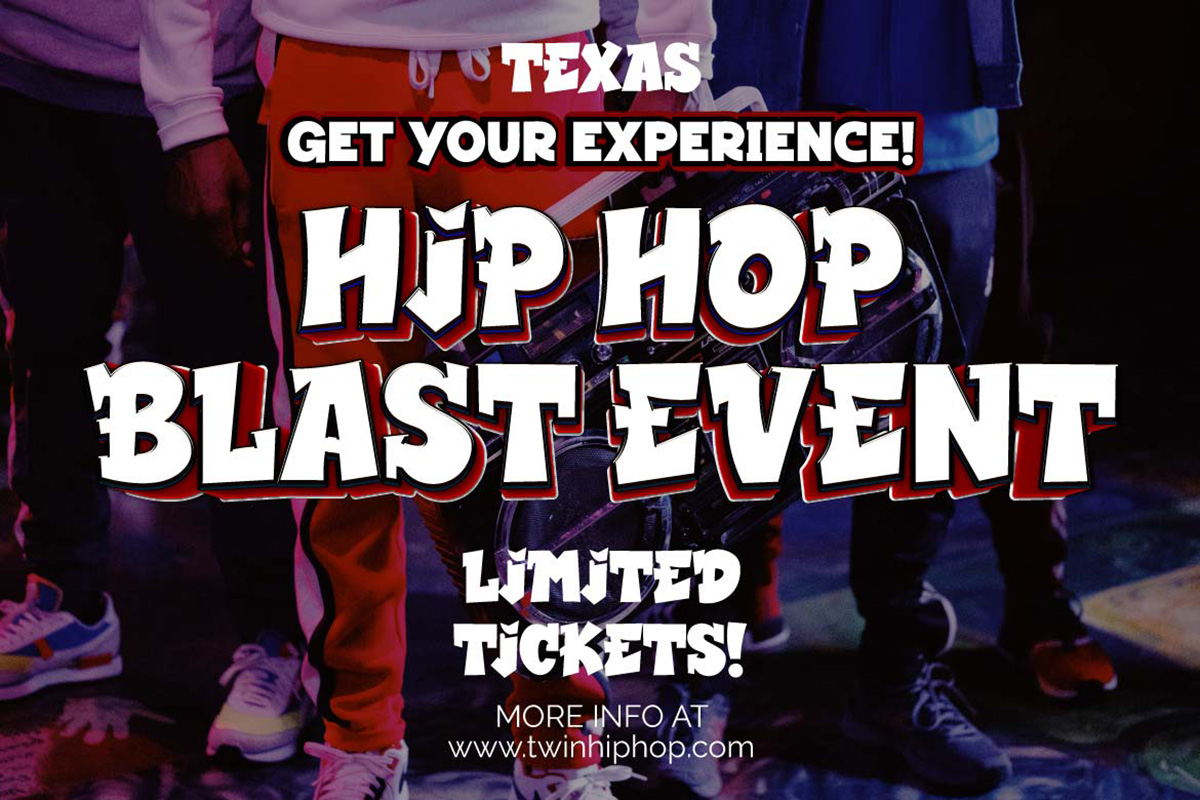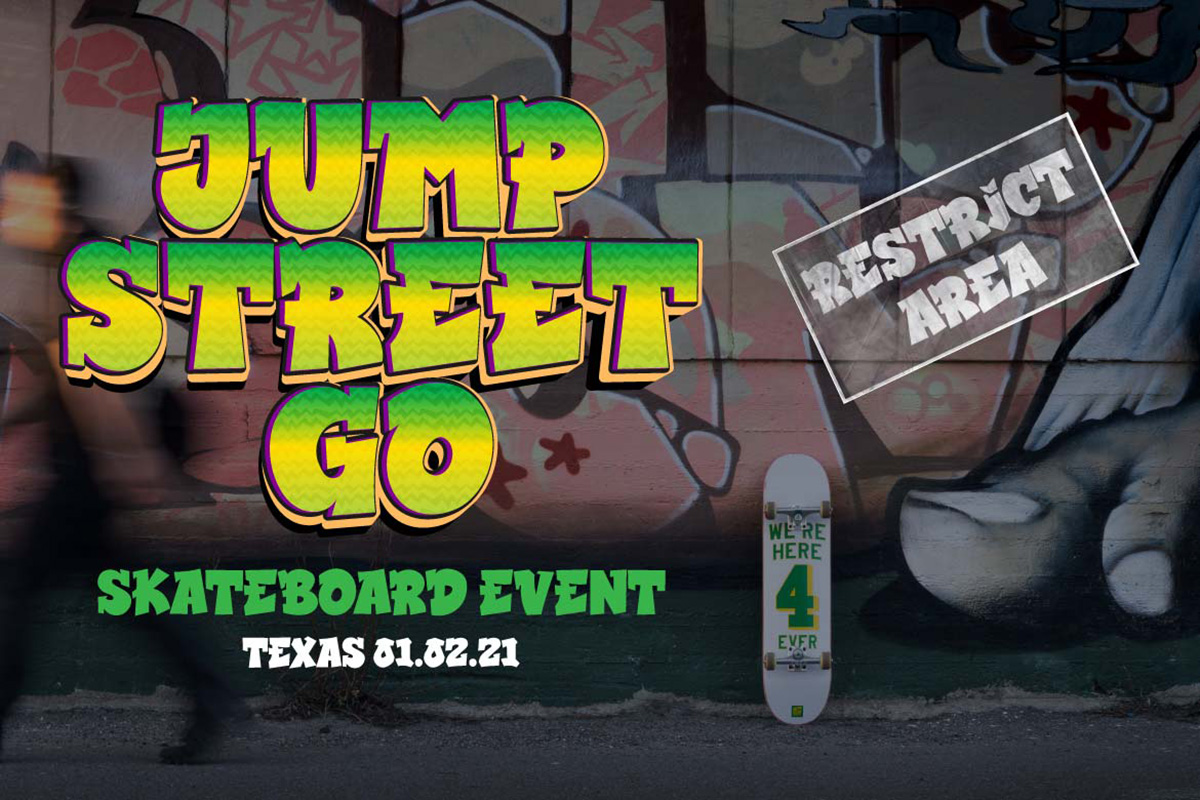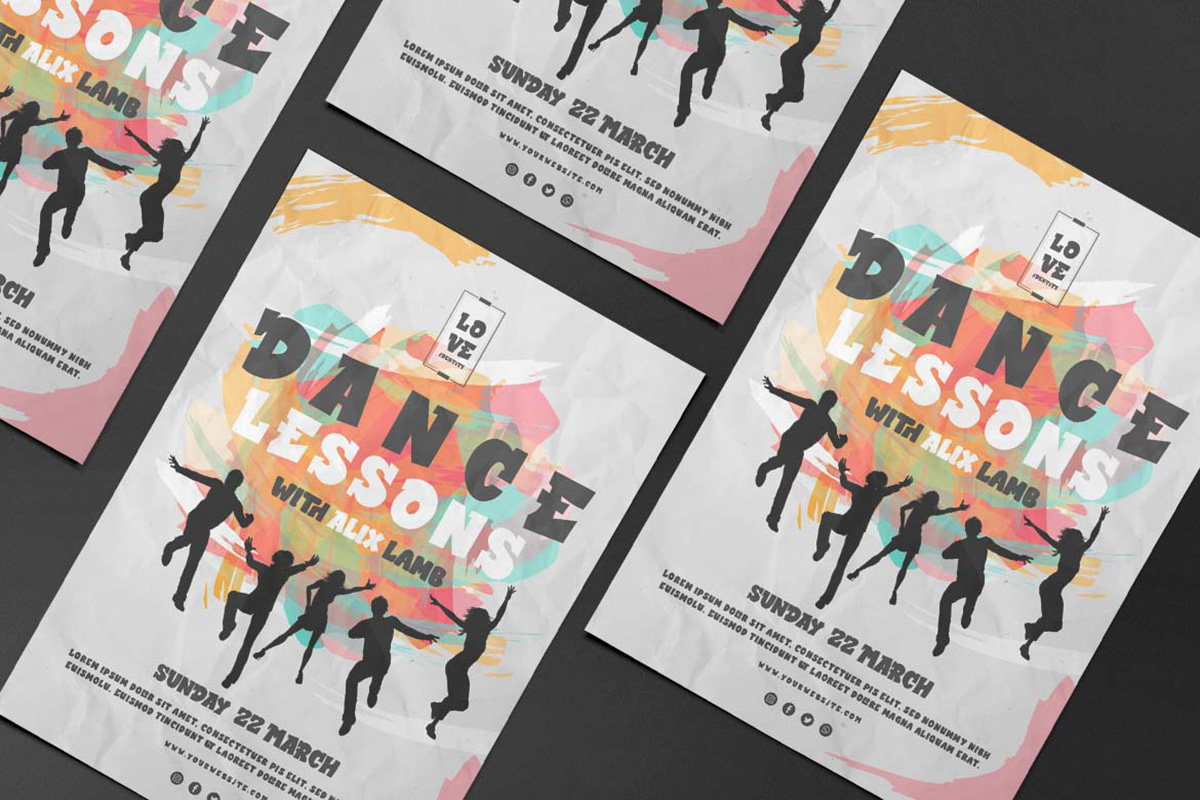
Delliger Free Font
Elevate your designs with Delliger Free Font, a vibrant display font inspired by graffiti art. Bursting with color, this playful and authentic typeface is an ideal choice for children’s activities, school projects, and more. Incorporate the chunky lettered style of Delliger into your designs to witness how it brings them to life. This free typeface was designed by a talented Twin Letter. If you like it don’t forget to check out the full version.